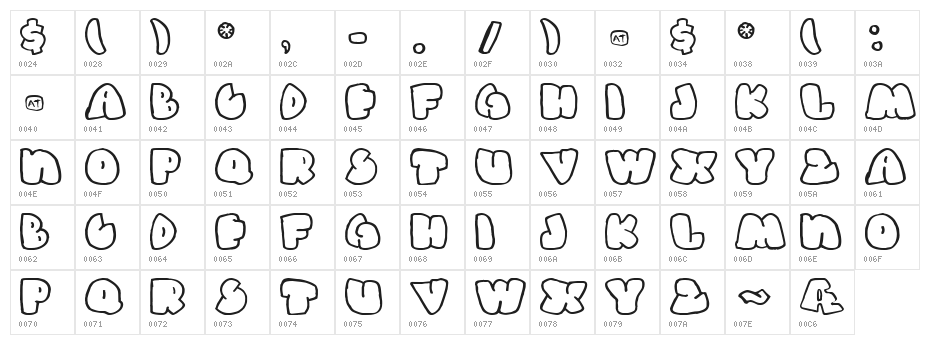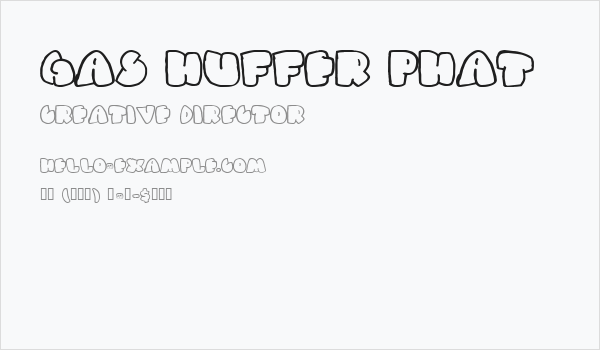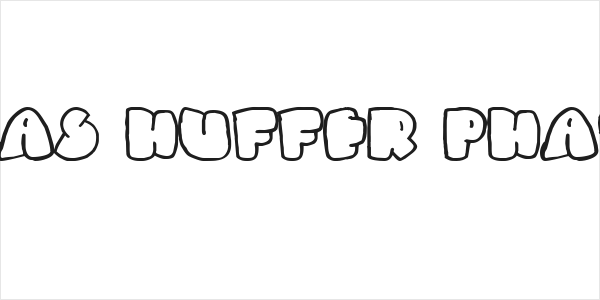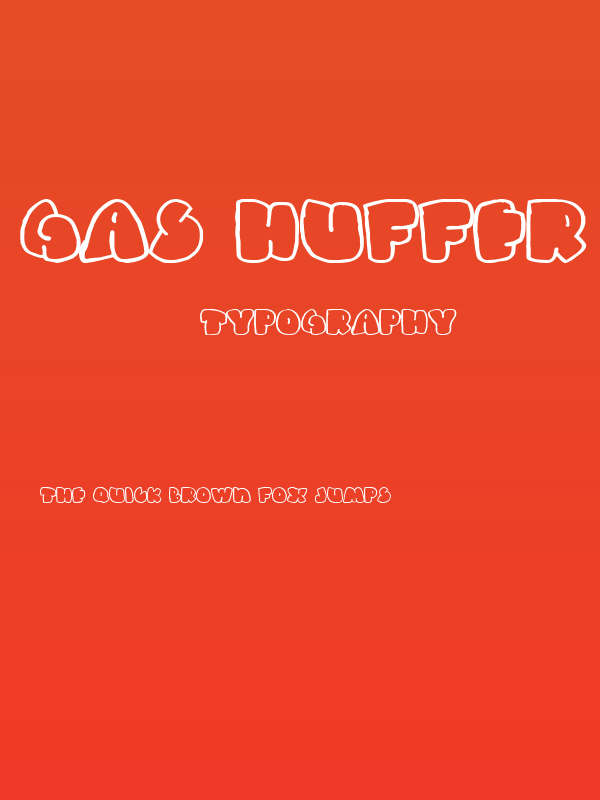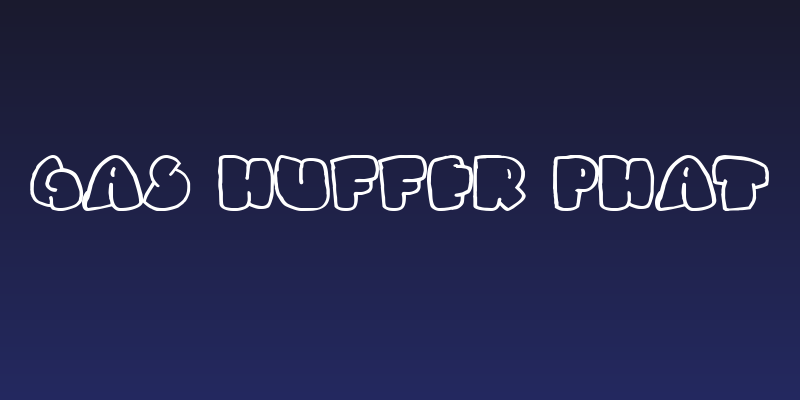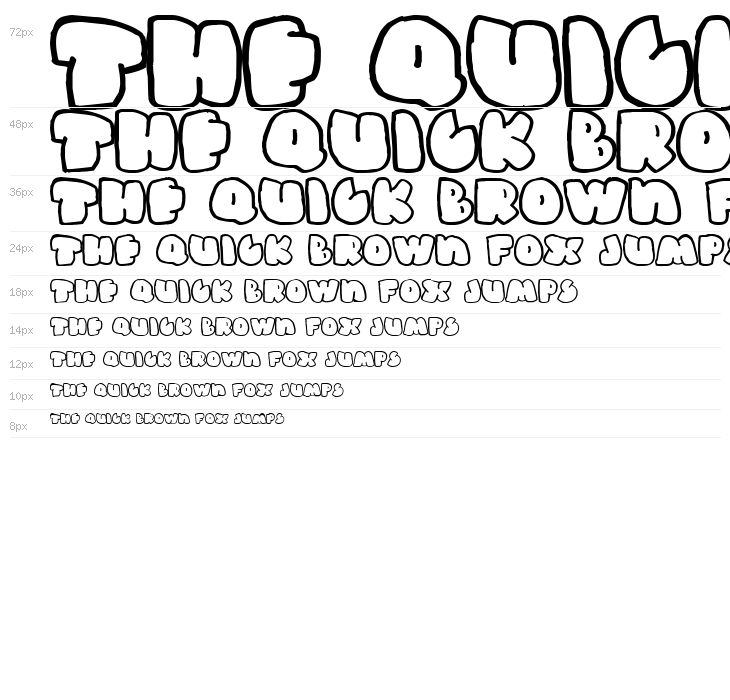
Gas Huffer Phat Font
Gas Huffer Phat Description
This playful and bold font features a bubbly, cartoonish style with thick, rounded edges. Each character is designed with a sense of whimsy, making it ideal for projects that require a fun and informal touch. The uppercase and lowercase letters maintain a consistent, exaggerated form, while the numbers and special characters complement the overall aesthetic with their chunky, oversized appearance. The font's unique style is characterized by its heavy weight and wide character spacing, creating a striking visual impact.
| Overall Style | Playful, Cartoonish, Fun |
| Use Case | Headlines, Logos, Posters, Children's materials |
| Proposed Projects | Ideal for children's books, comic strips, playful branding, party invitations, and any project needing a fun, informal touch. |